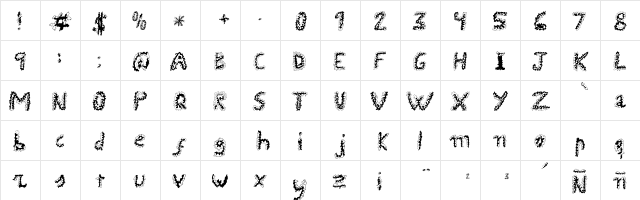
Uroboros Regular
Design Context for Uroboros Typeface
Uroboros is a composed and adaptable typeface that performs quietly and consistently across a wide range of design contexts.